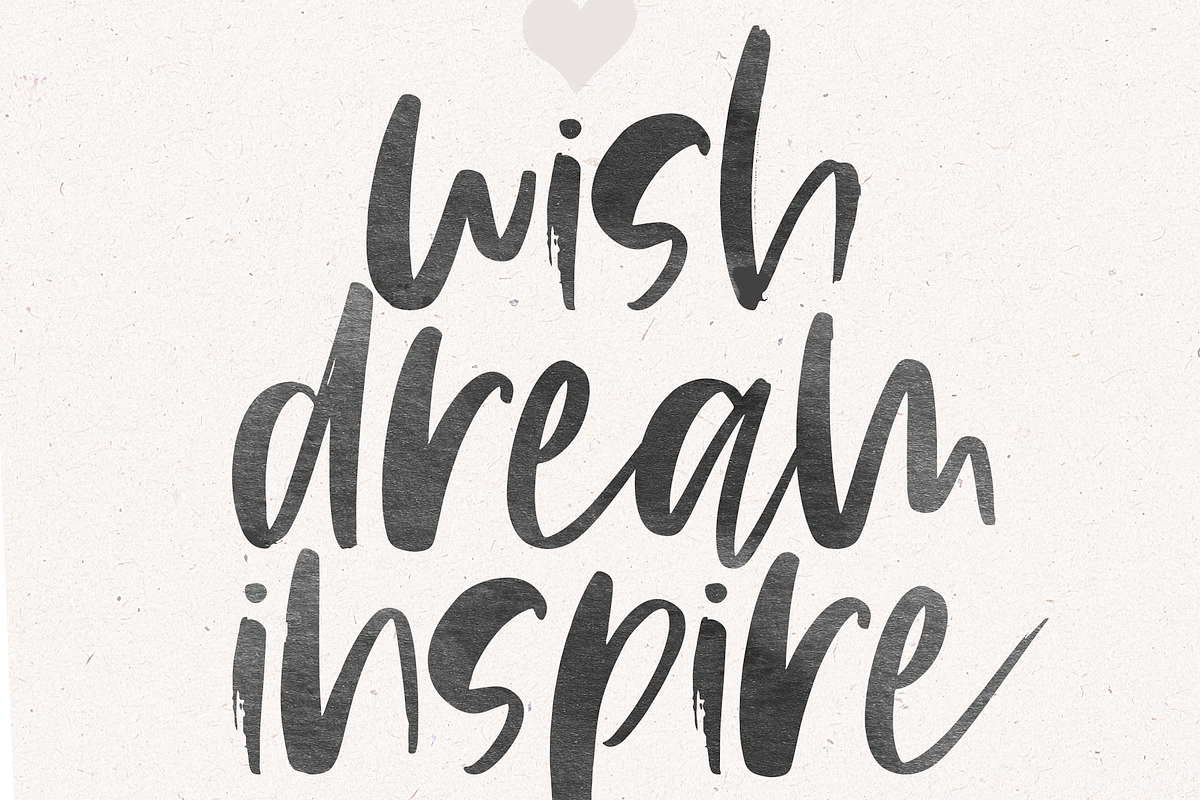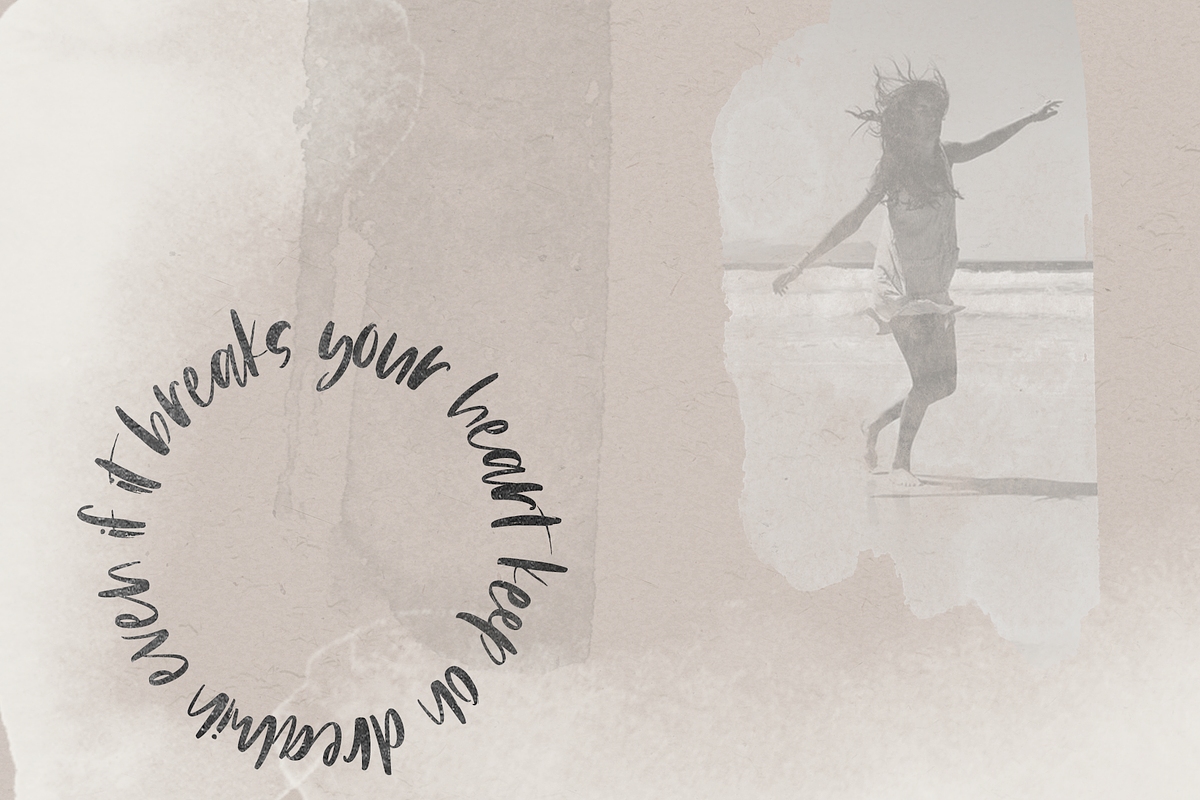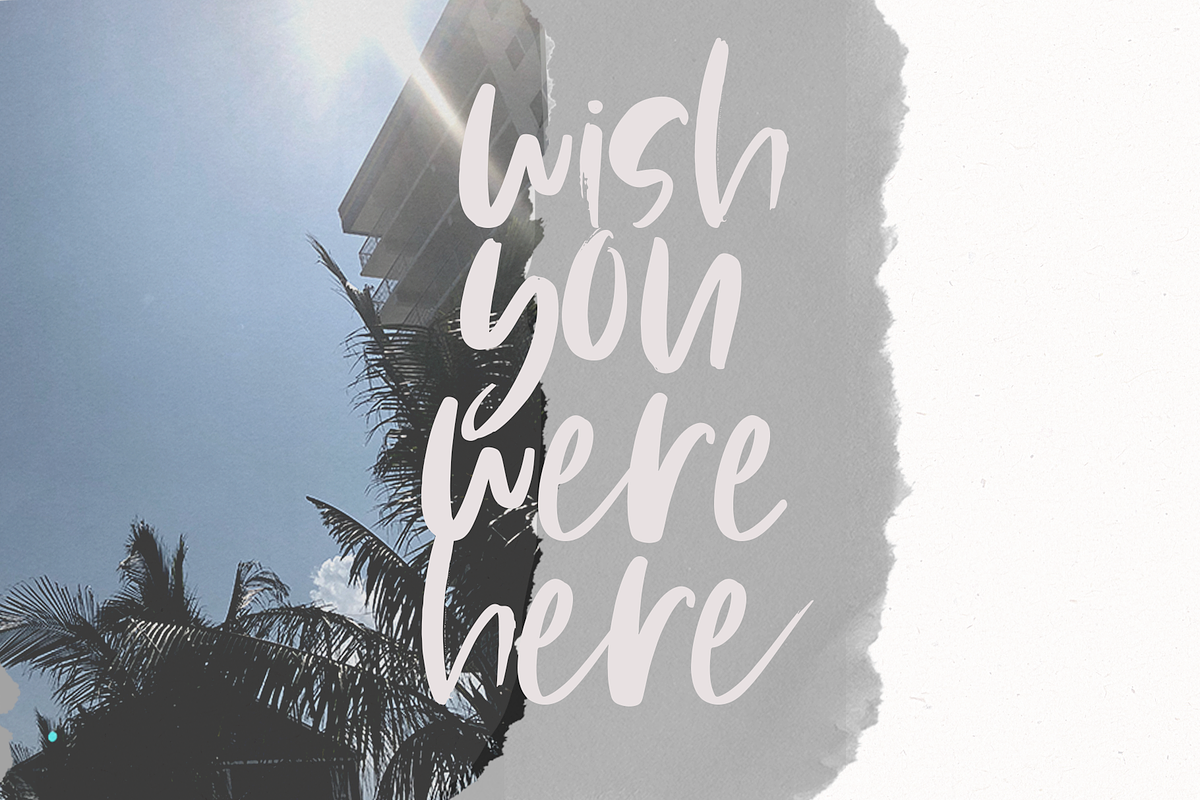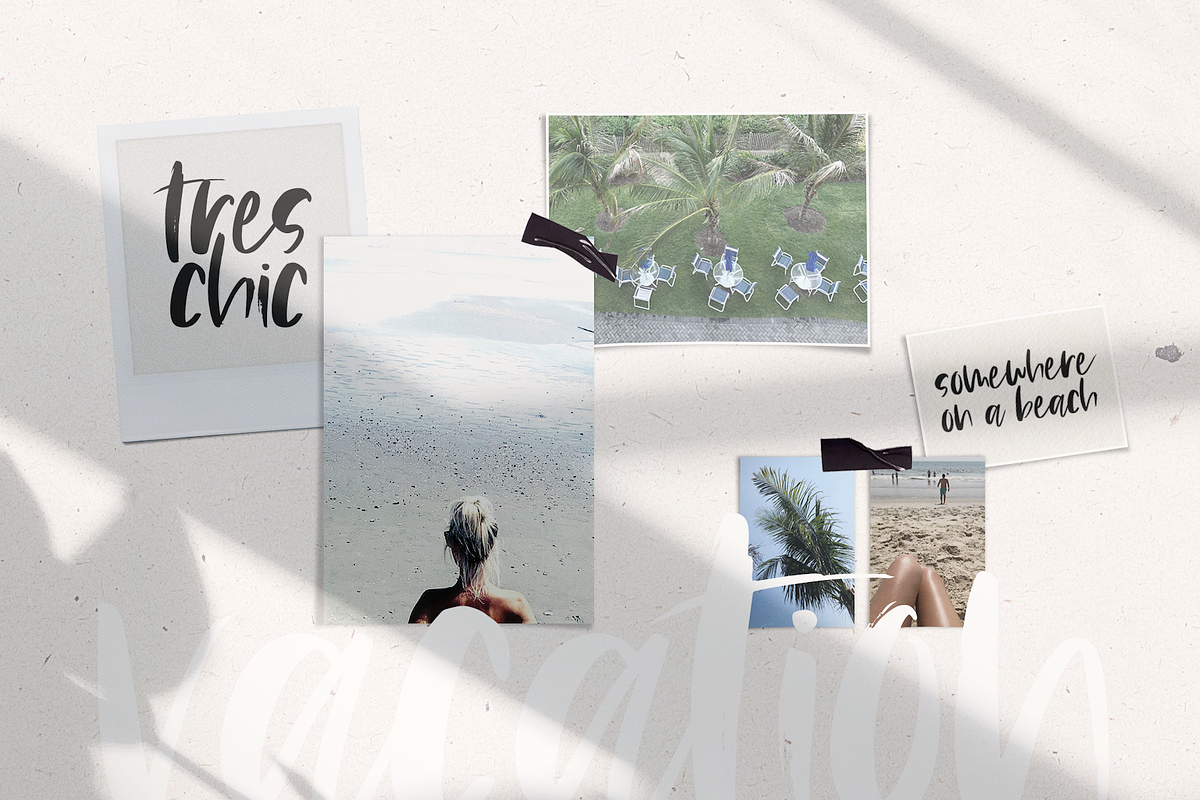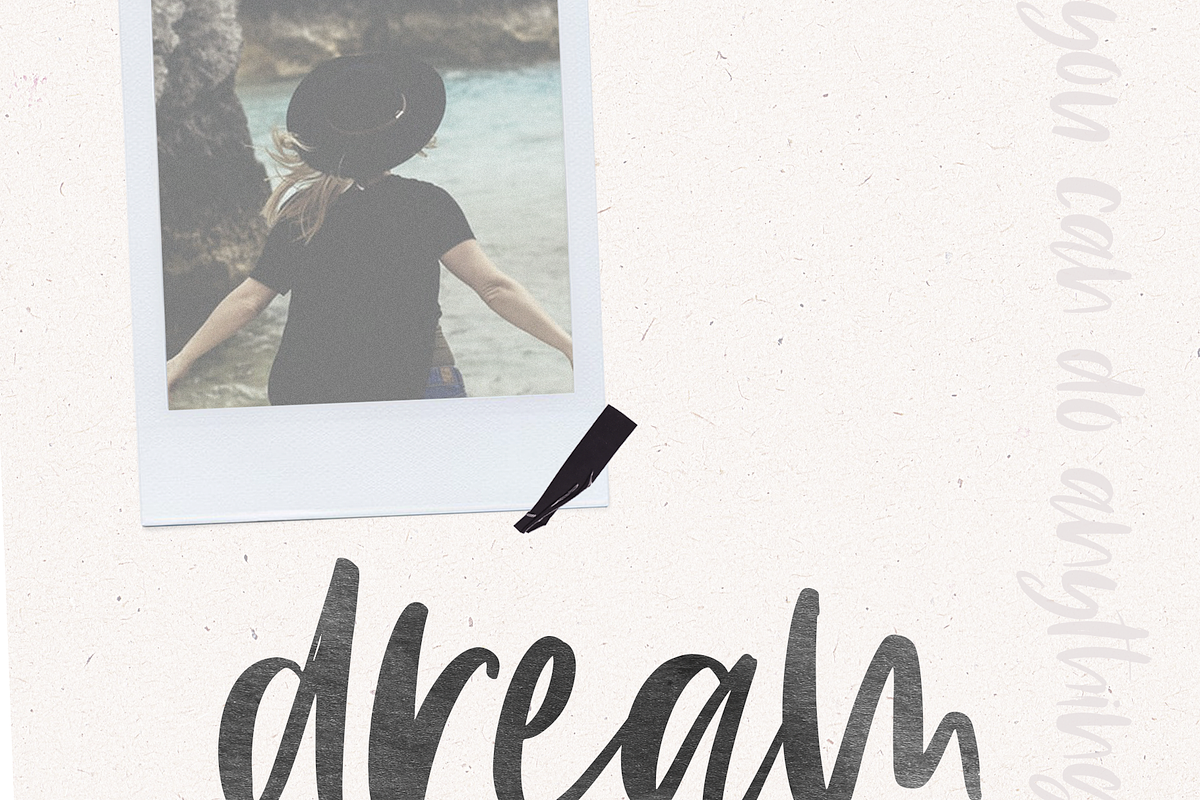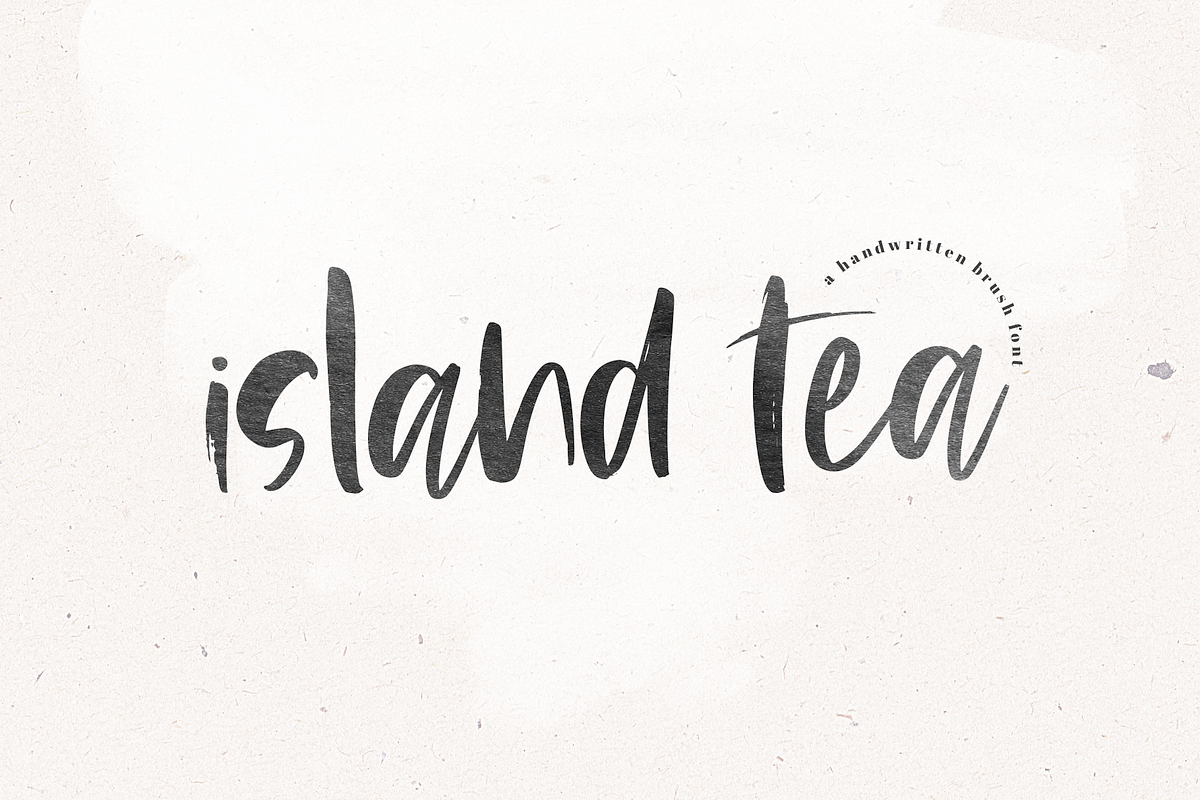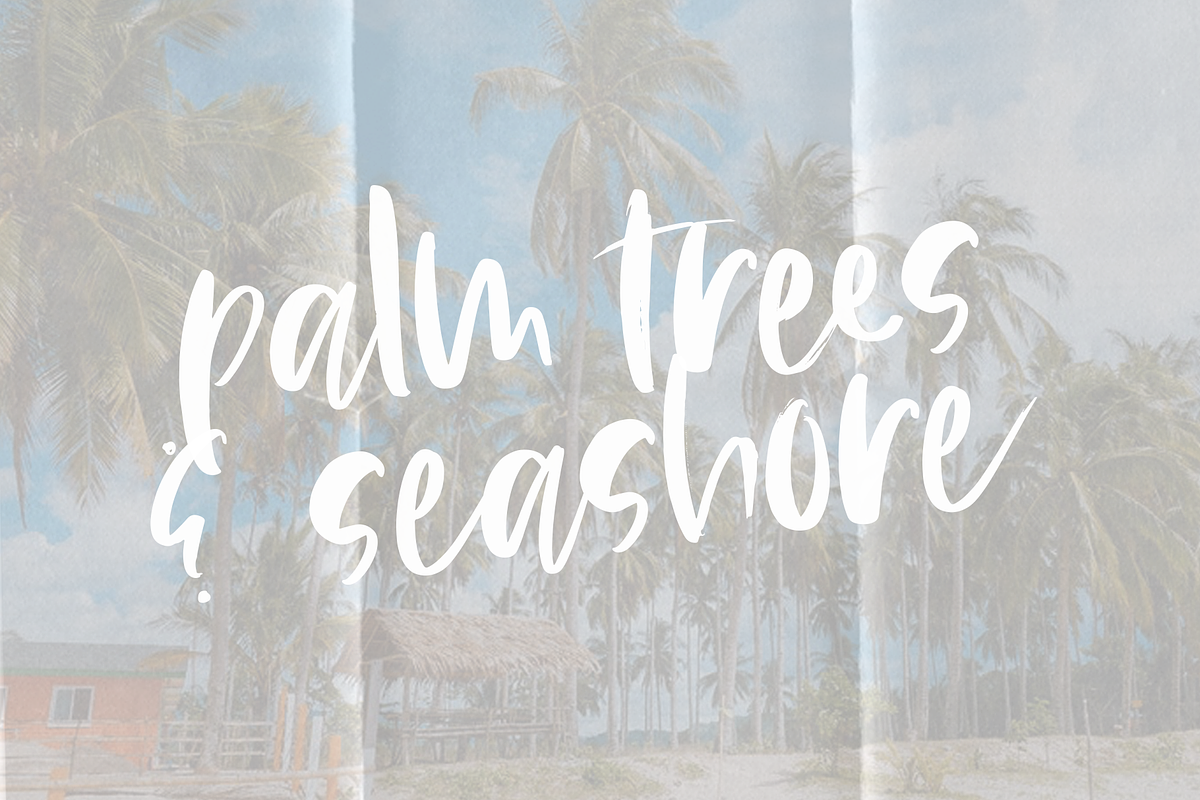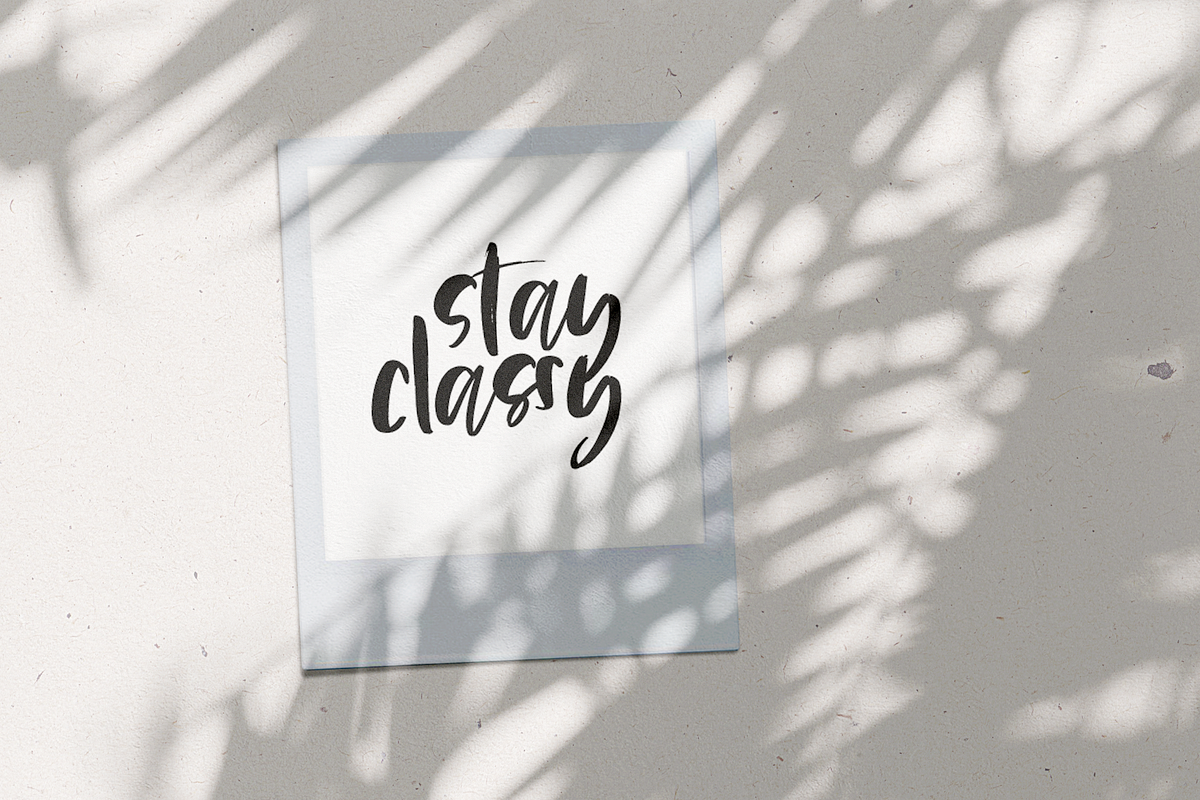
Island Tea - Handwritten Brush Font
Island Tea is handwritten font written with a brush pen.
This font is perfect for modern projects, headings, blogs, logos, brandings, invitations and more!
Island Tea - Handwritten Brush Font by KA Designs fits naturally into Branding, posters, packaging, typography.